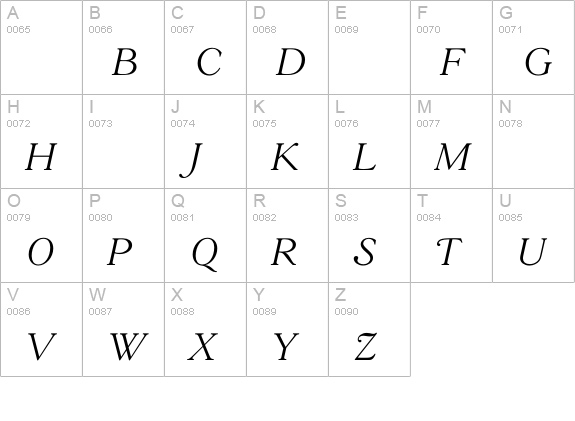
GoudY38LightItalic Font Details
The Goudy38 Light Italic font exudes elegance and sophistication with its delicate slanted style. Its graceful curves and subtle italicized design make it a perfect choice for adding a touch of luxury to any project. This font strikes the perfect balance between classic and contemporary, making it versatile for a wide range of design applications. What's even better is that the Goudy38 Light Italic font is available for free download at FontsMarket.com. Now you can elevate your designs with this exquisite typeface without breaking the bank. Don't miss out on the opportunity to enhance your projects with the timeless beauty of the Goudy38 Light Italic font, available at your fingertips for free.